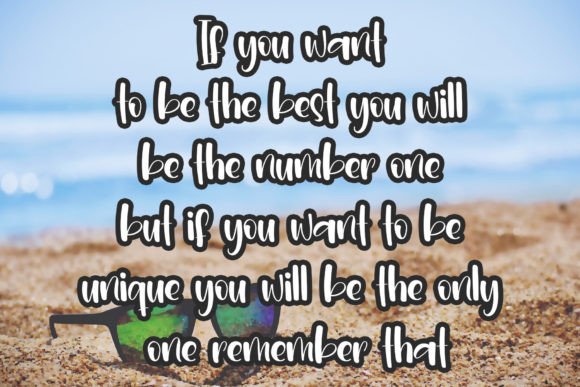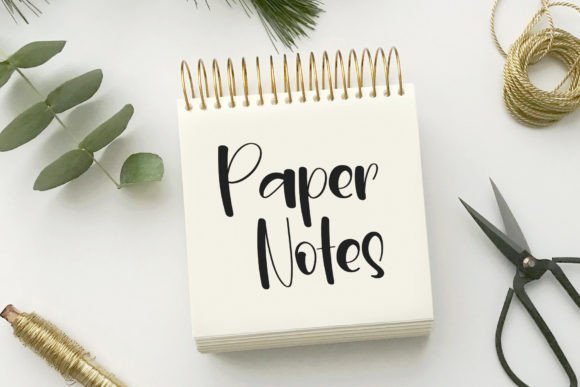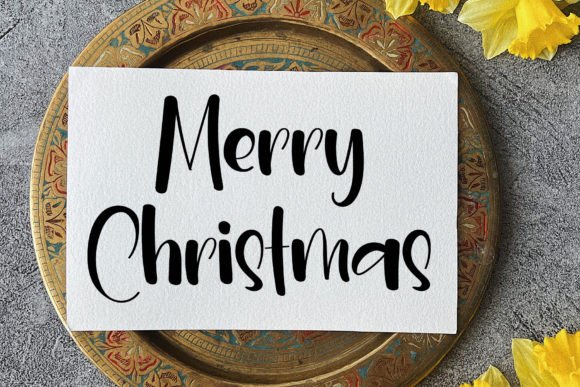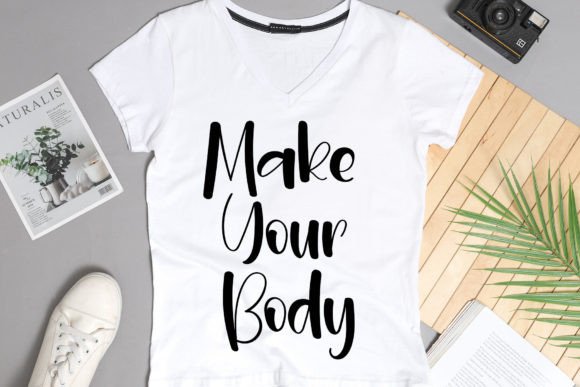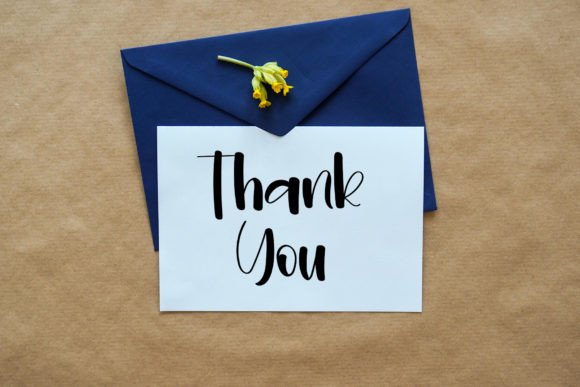
Introduction to Smarting Designer Font
Smarting Designer is a beautiful handwritten font perfect for product packaging, branding projects, magazines, social media posts, weddings, or just used to express words above the background.
Key Features of Smarting Designer Font
Why Choose Smarting Designer Font?
Smarting Designer Font offers exceptional quality and versatility, making it a valuable addition to your design toolkit. Whether you’re creating for personal projects or commercial use, Smarting Designer Font delivers professional results.